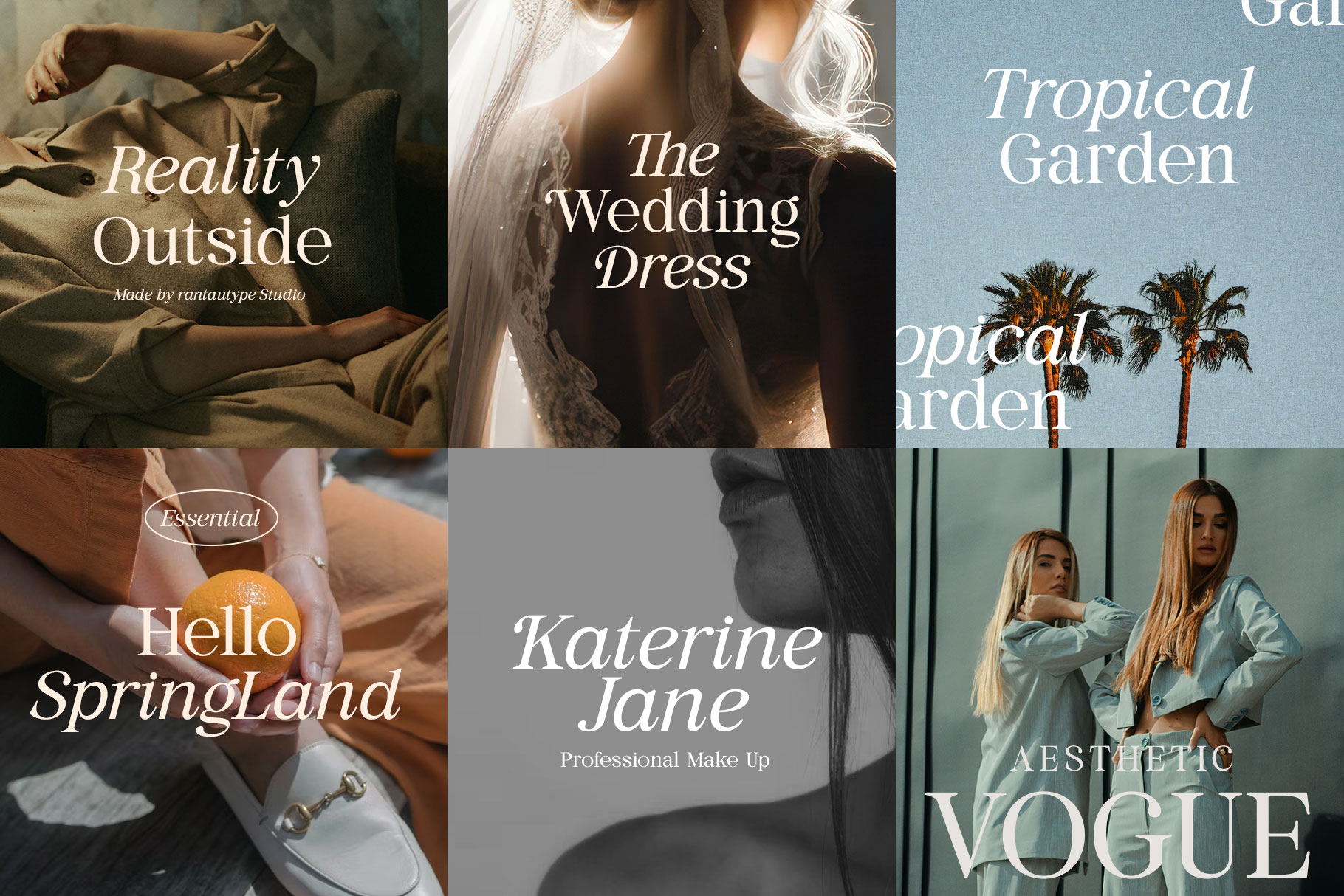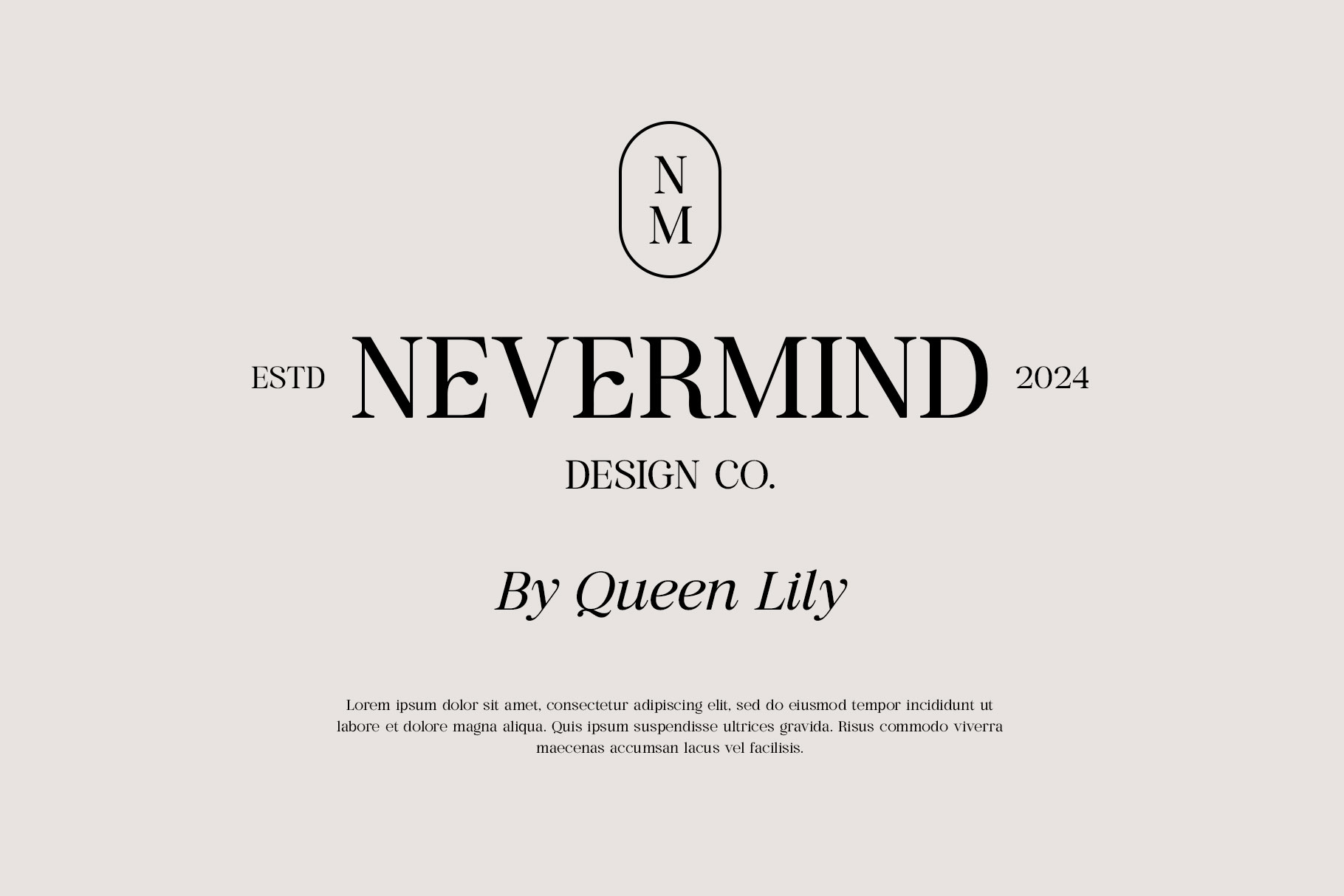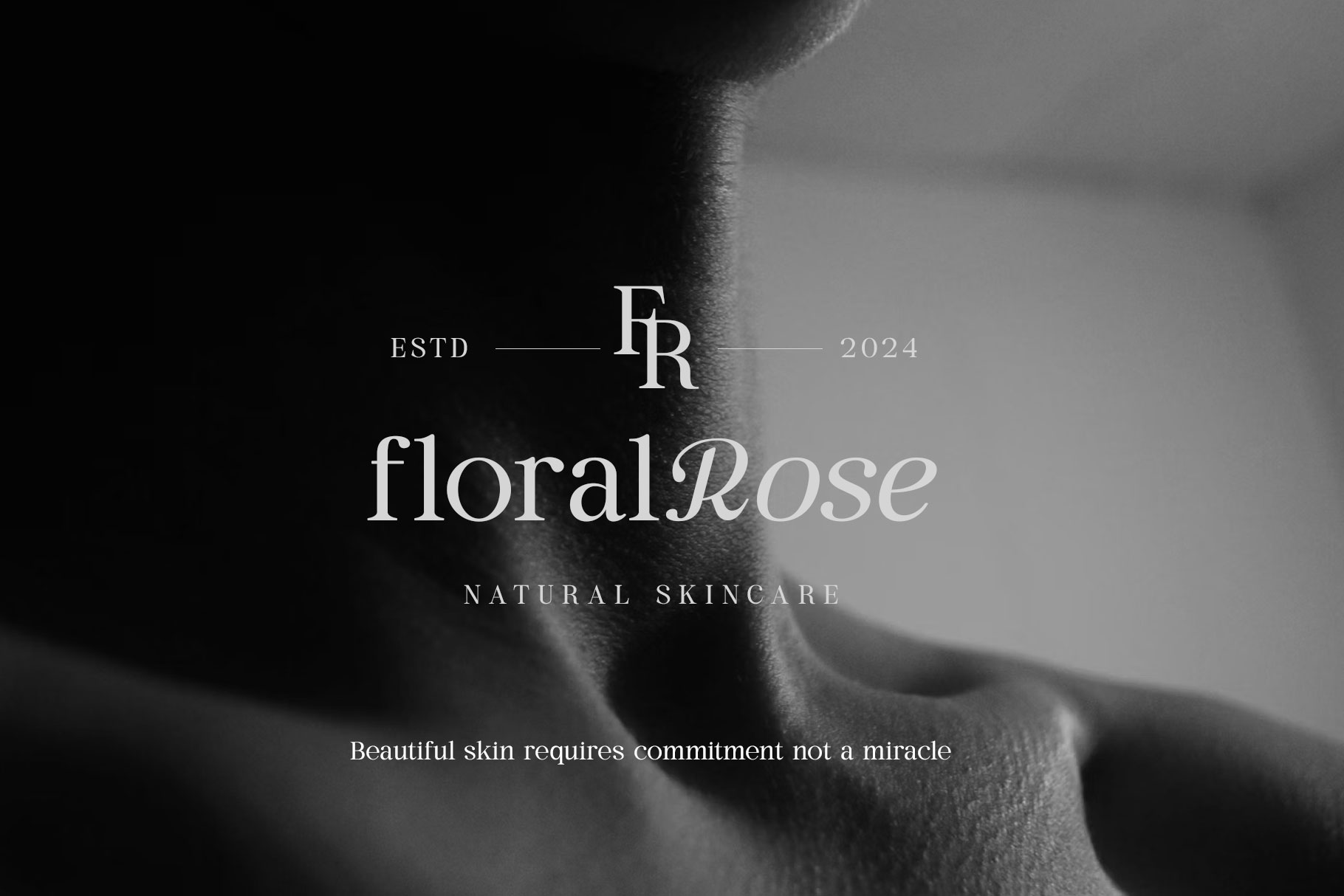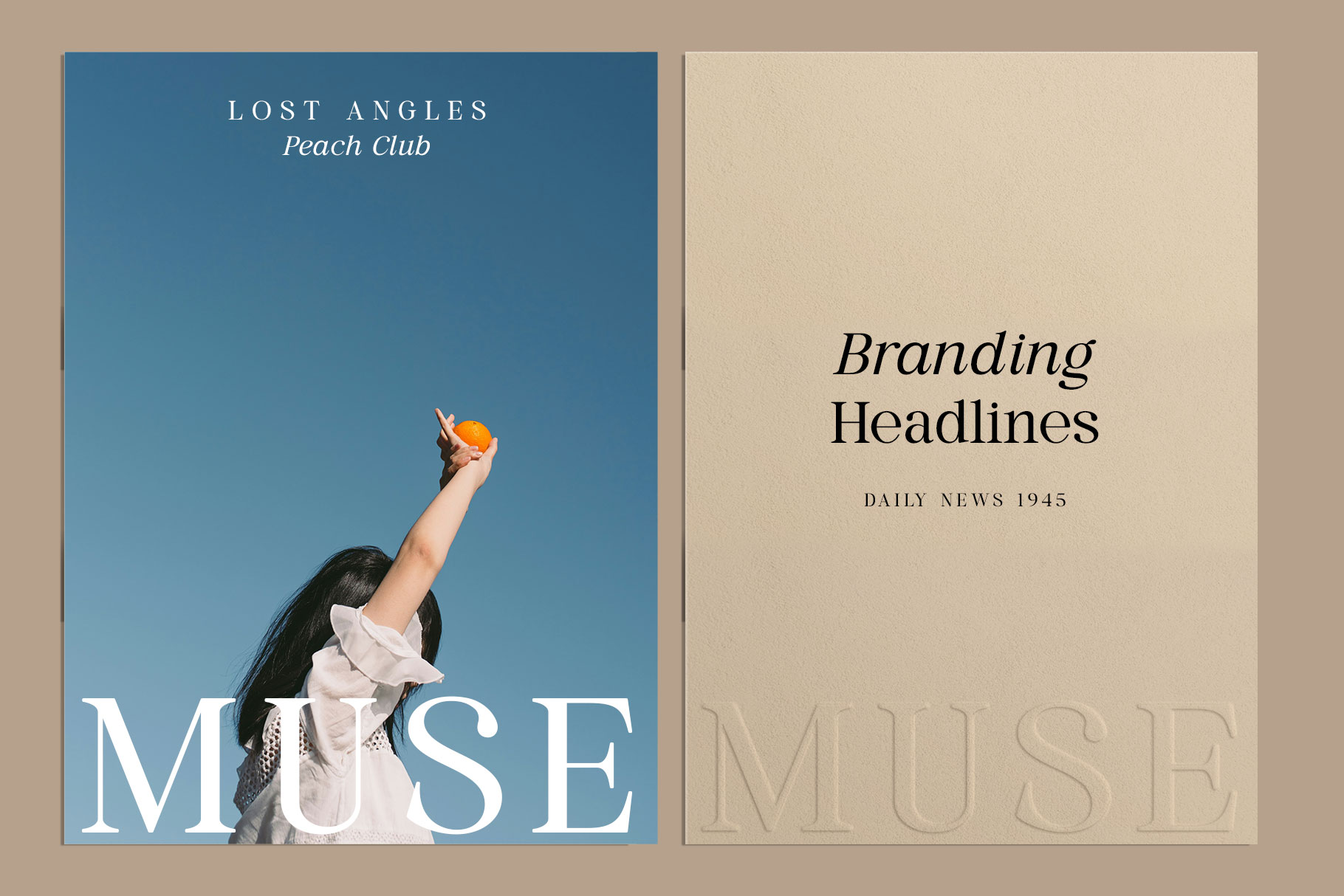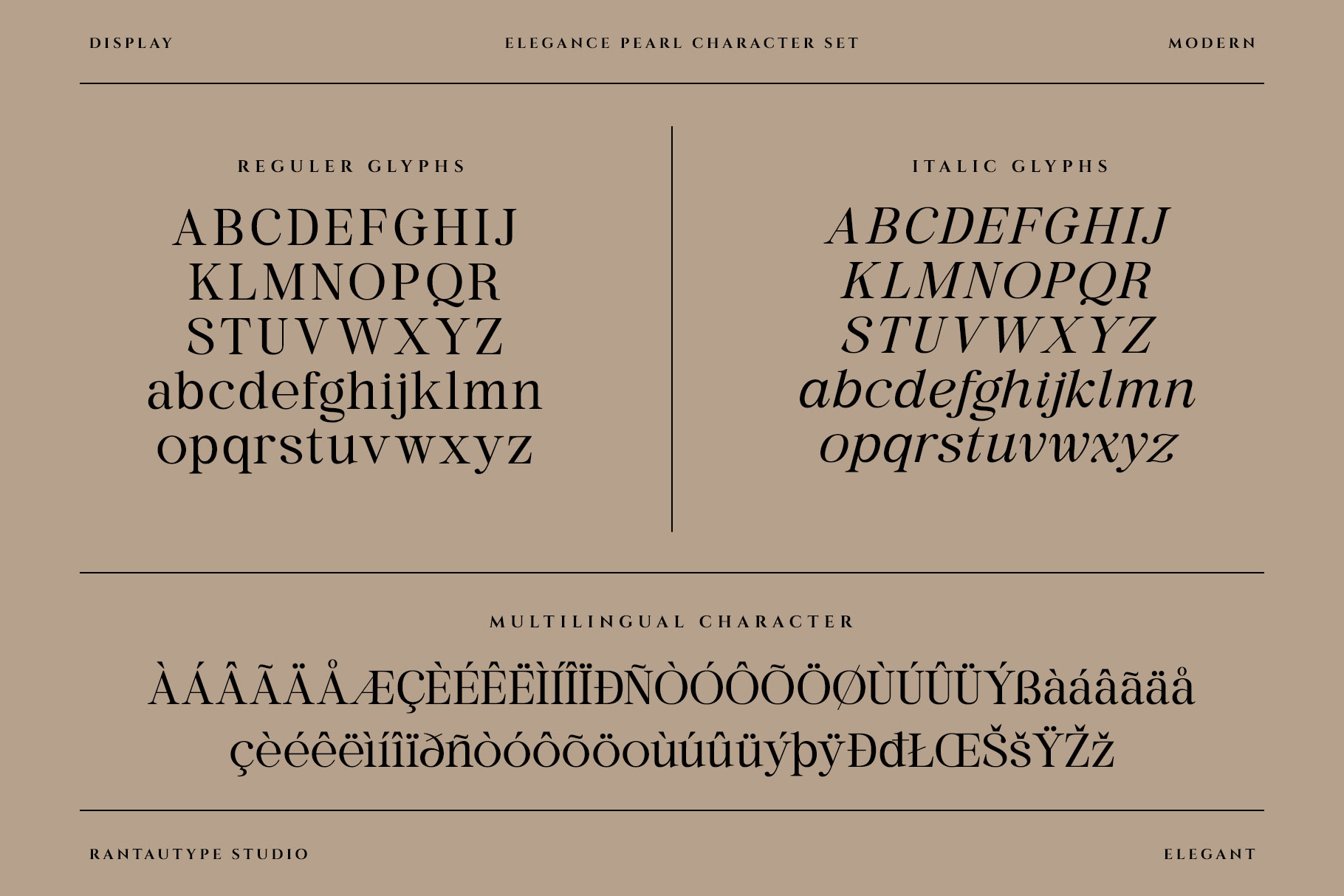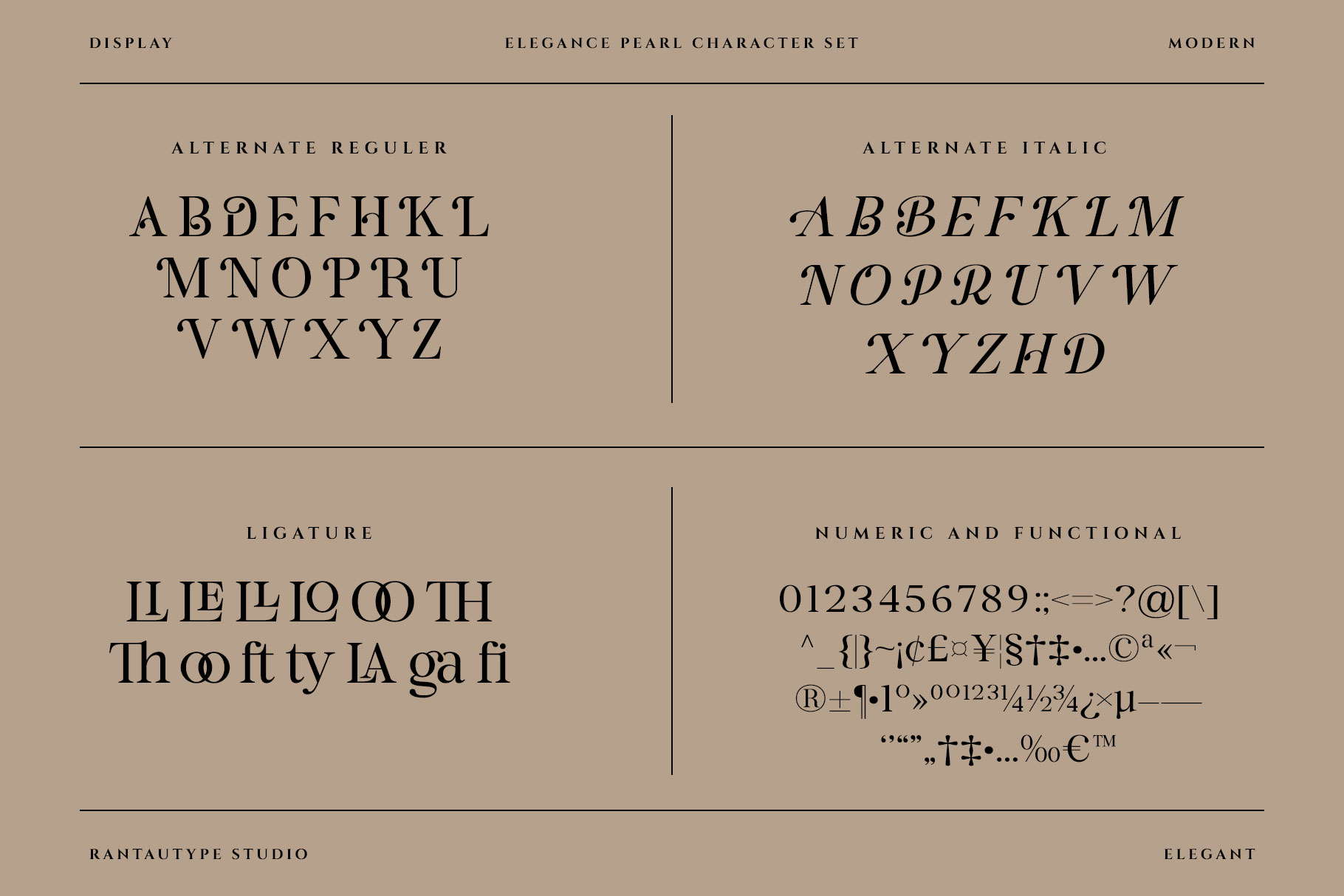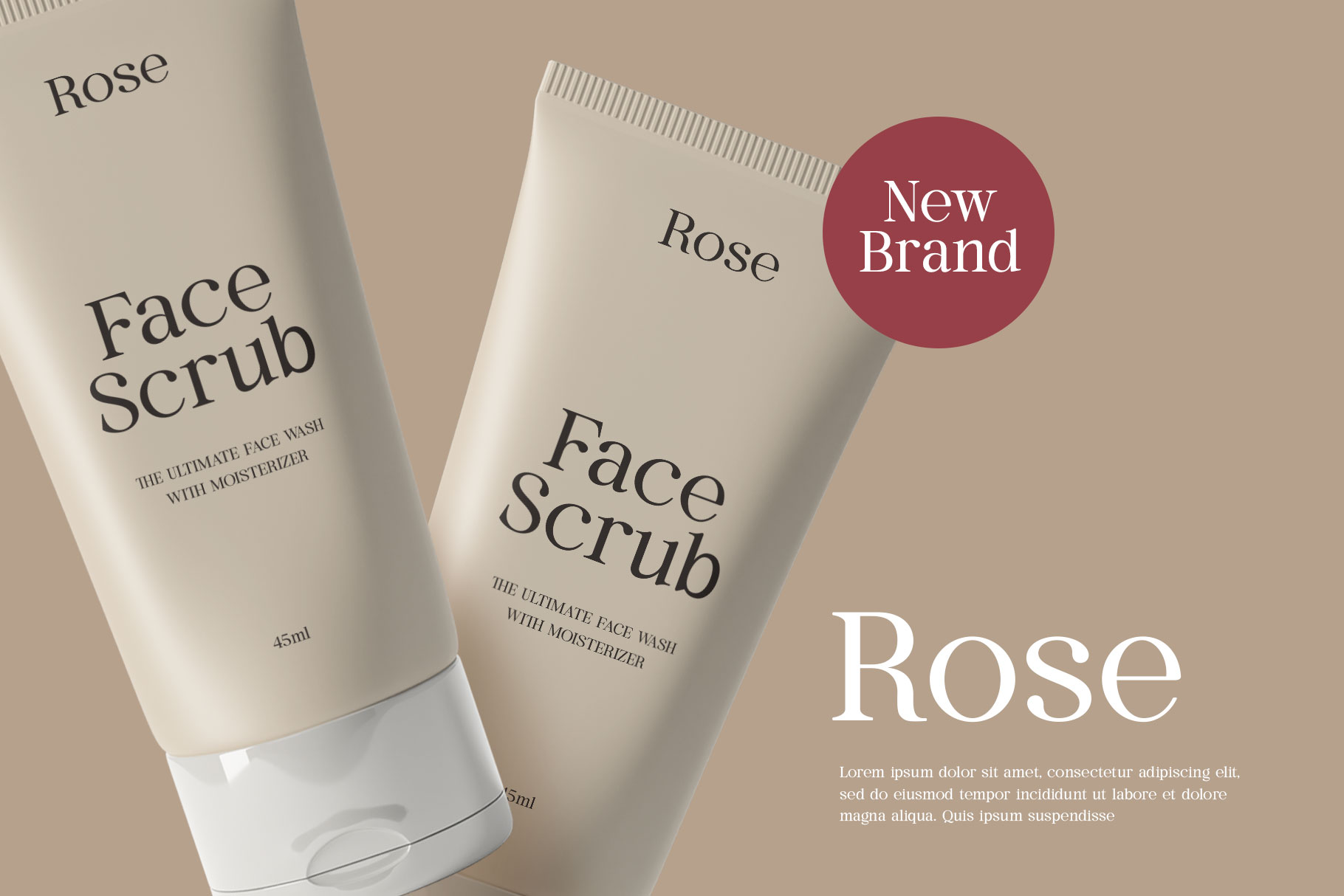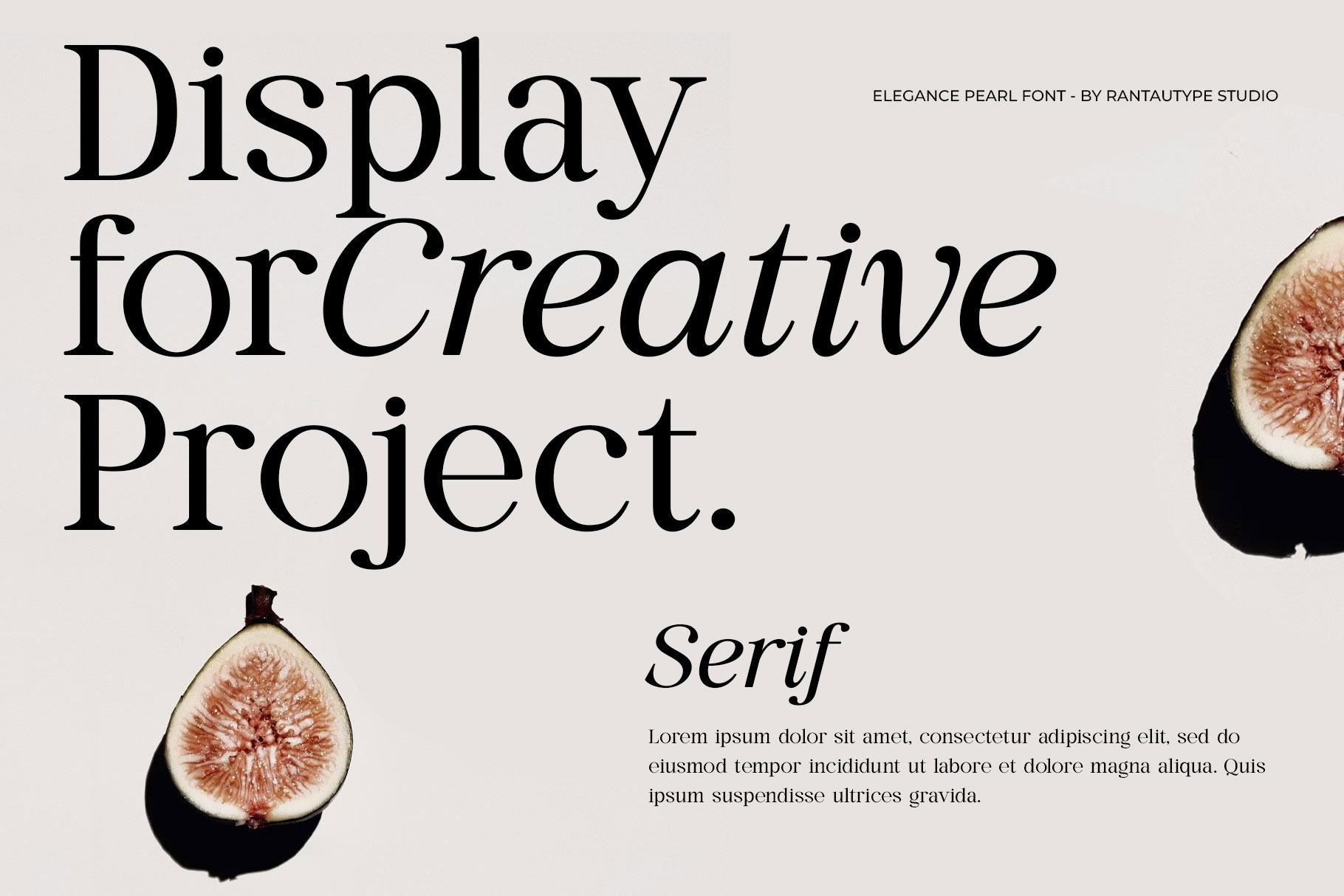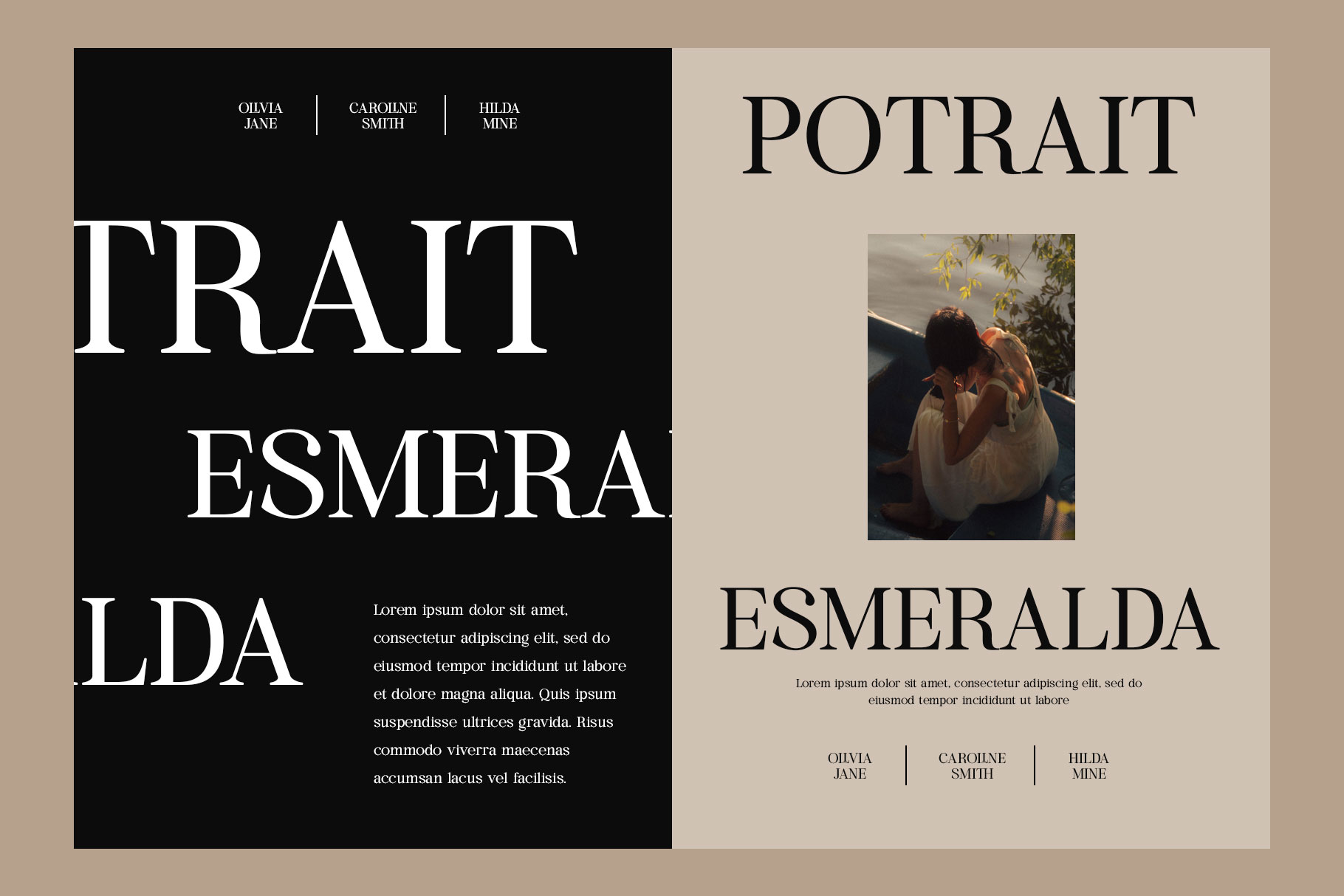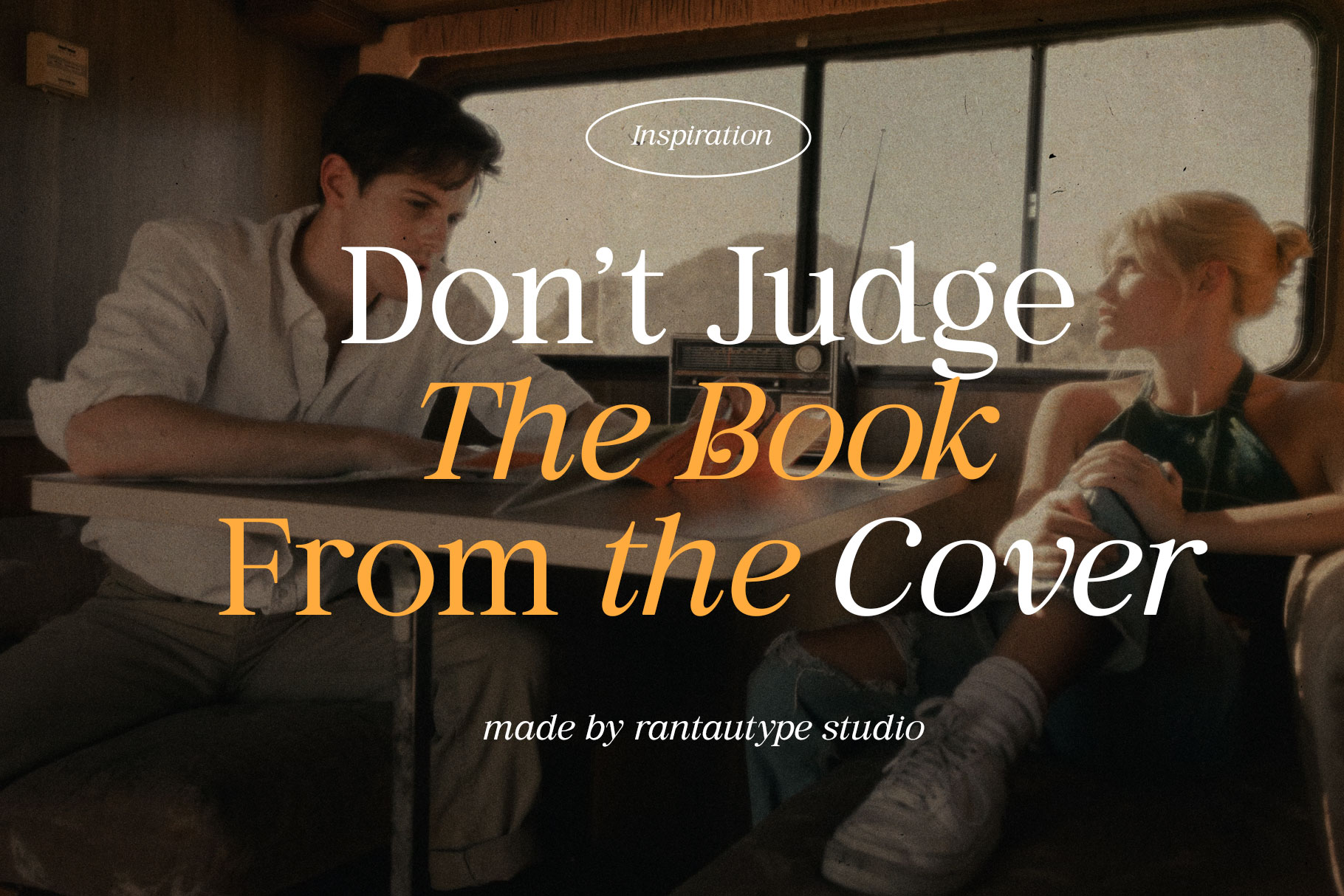
Elegance Pearl Display Serif Font
Elegance Pearl is a modern display serif font with soft line that embraces elegance and grace. Its delicate curves and refined details create a sense of sophistication and femininity. Elegance Pearl bring two version reguler and italic version very suitable for your design with nostalgic vibes.
Elegance Pearl is a perfectly choice for any creative endeavor, chic, lifestyle design such as logos, advertisements, watermark on photography, stationery, branding project, display and magazine, invitation, corporate brand, product design, label, business project.